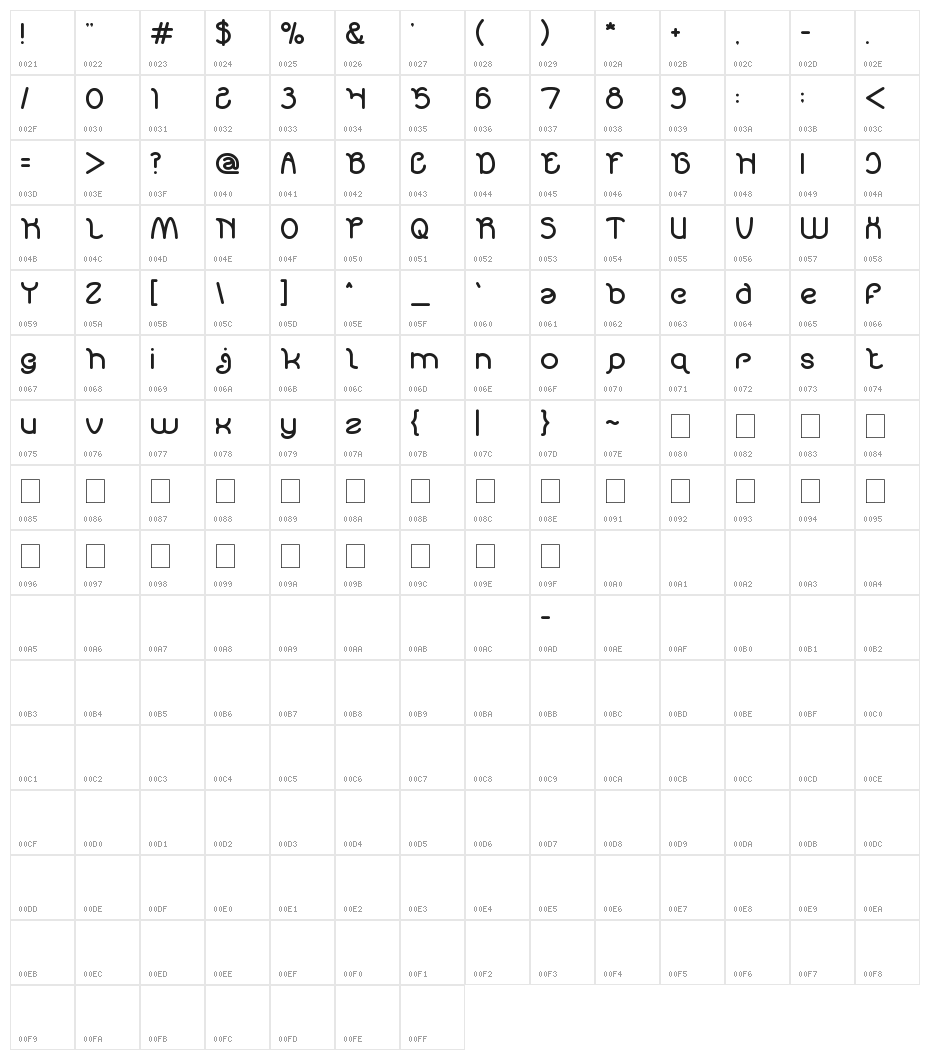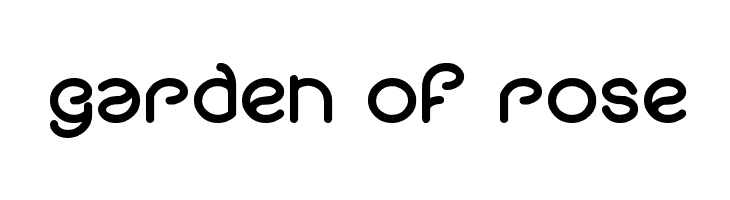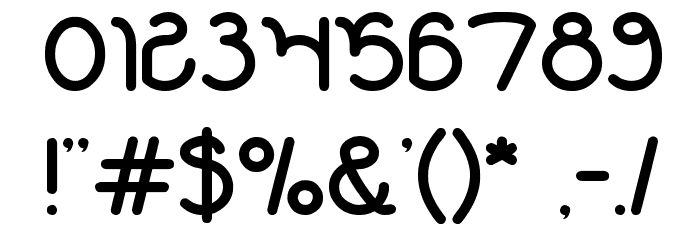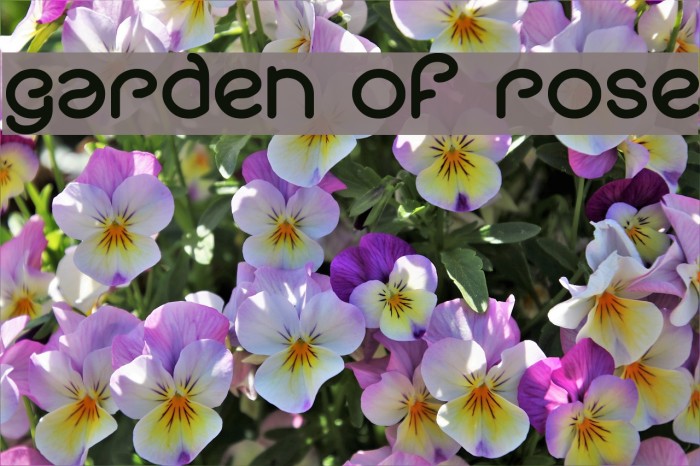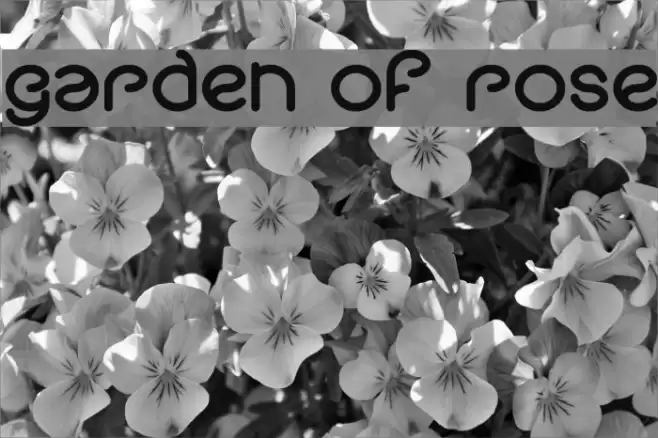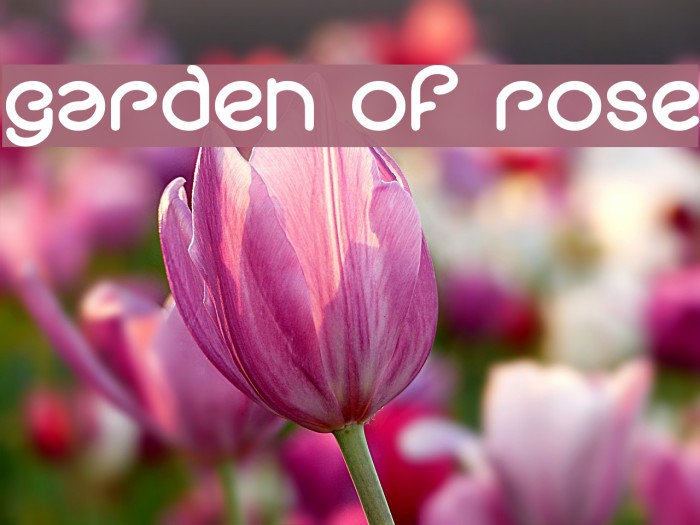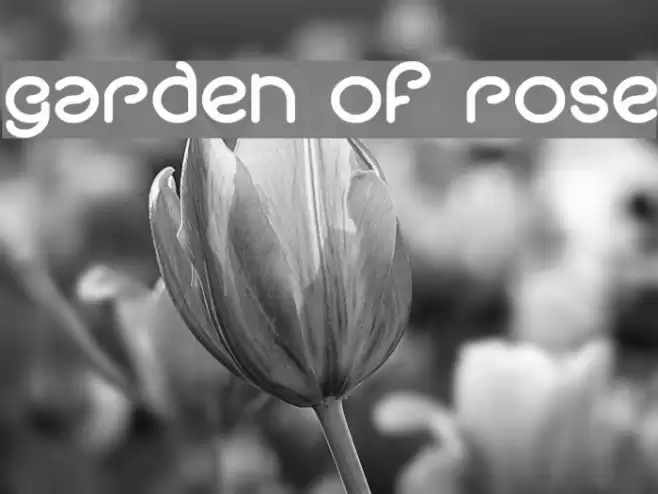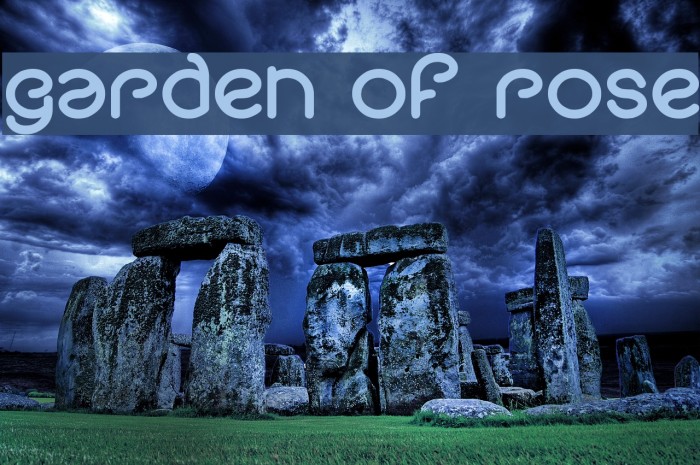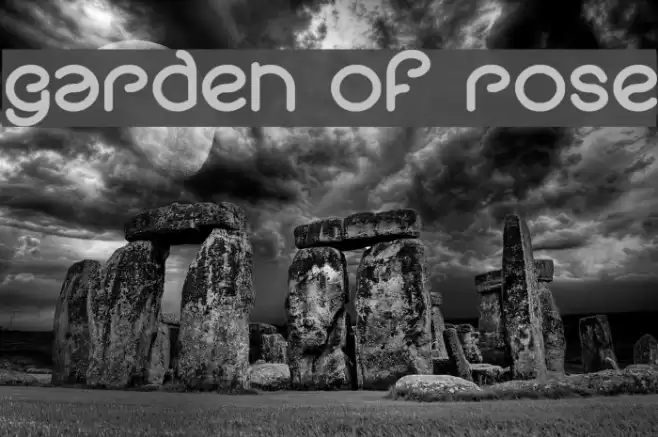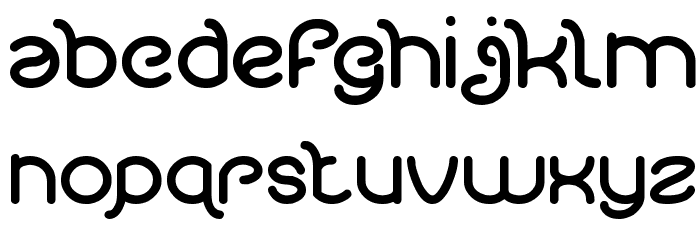
garden of rose Font
garden of rose Description
This playful and whimsical font features rounded, flowing characters that convey a sense of fun and creativity. The letters are bold and have a consistent stroke width, giving them a uniform appearance. The uppercase and lowercase letters maintain a similar style, with slight variations in curvature and form. The numbers are distinct and easy to read, while the special characters complement the overall design. This font's unique style makes it stand out, making it suitable for projects that require a touch of personality and flair.
| Proposed Projects | Ideal for children's books, playful branding, greeting cards, and creative posters. |